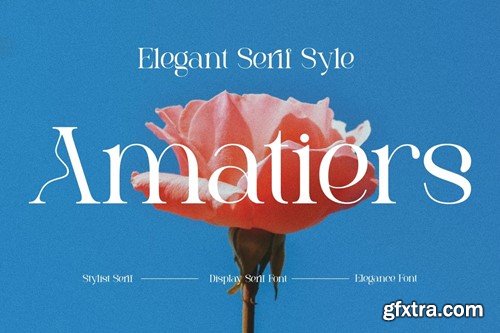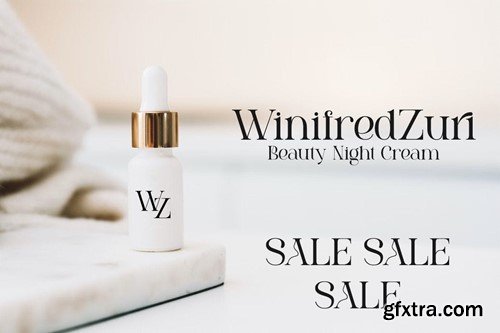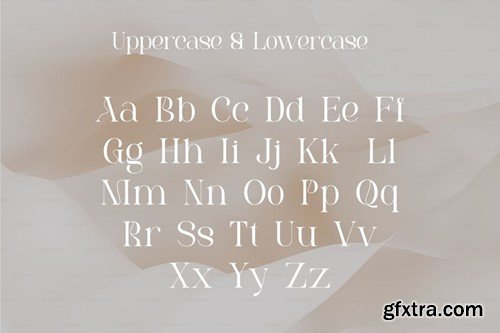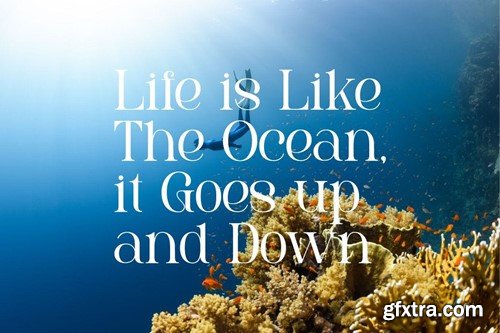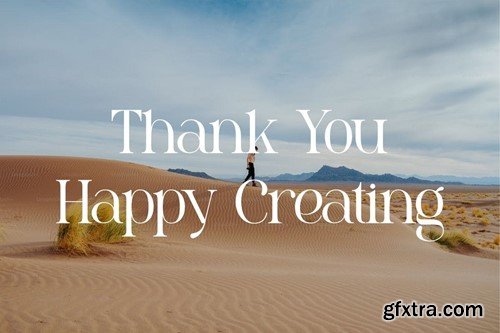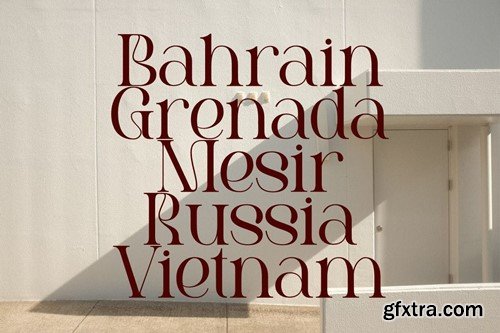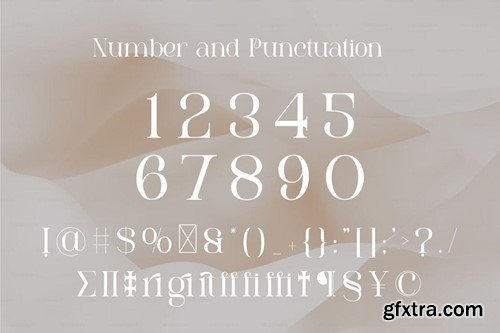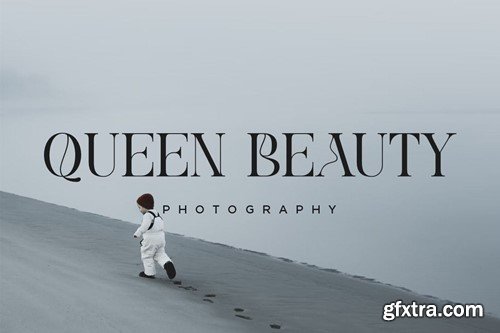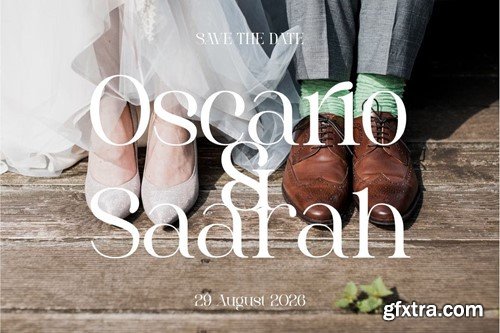
Amatiers Serif Font
Introducing of our new product the name is *Amatiers Serif Font *. This collection of sSerif is perfect for personal branding. It was made with the intention to be used for your personal branding. But, this works well for many applications. Everything from personal branding, logos, name tag, handwritten quotes, product packaging, merchandise, social media & greeting cards. photography signature, advertising could benefit from this collection of these bold signature fonts. Font Compatible with → Photoshop → Corel/Ai → ios/Ms This purchase is in the form of a ZIP file only: OTF TTF Thank you